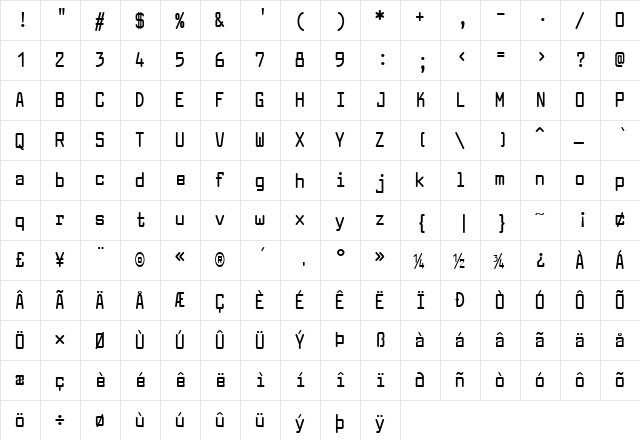
Larabiefont Condensed Bold
Design Context for Larabiefont Condensed Typeface
Larabiefont Condensed is a composed and adaptable typeface that performs quietly and consistently across a wide range of design contexts. Its bold stroke weight gives it real presence on the page. The condensed width makes it efficient for tight spaces without sacrificing legibility.
Pro Tip: Use Larabiefont Condensed in both headline and body roles to test its range before committing to a single application.